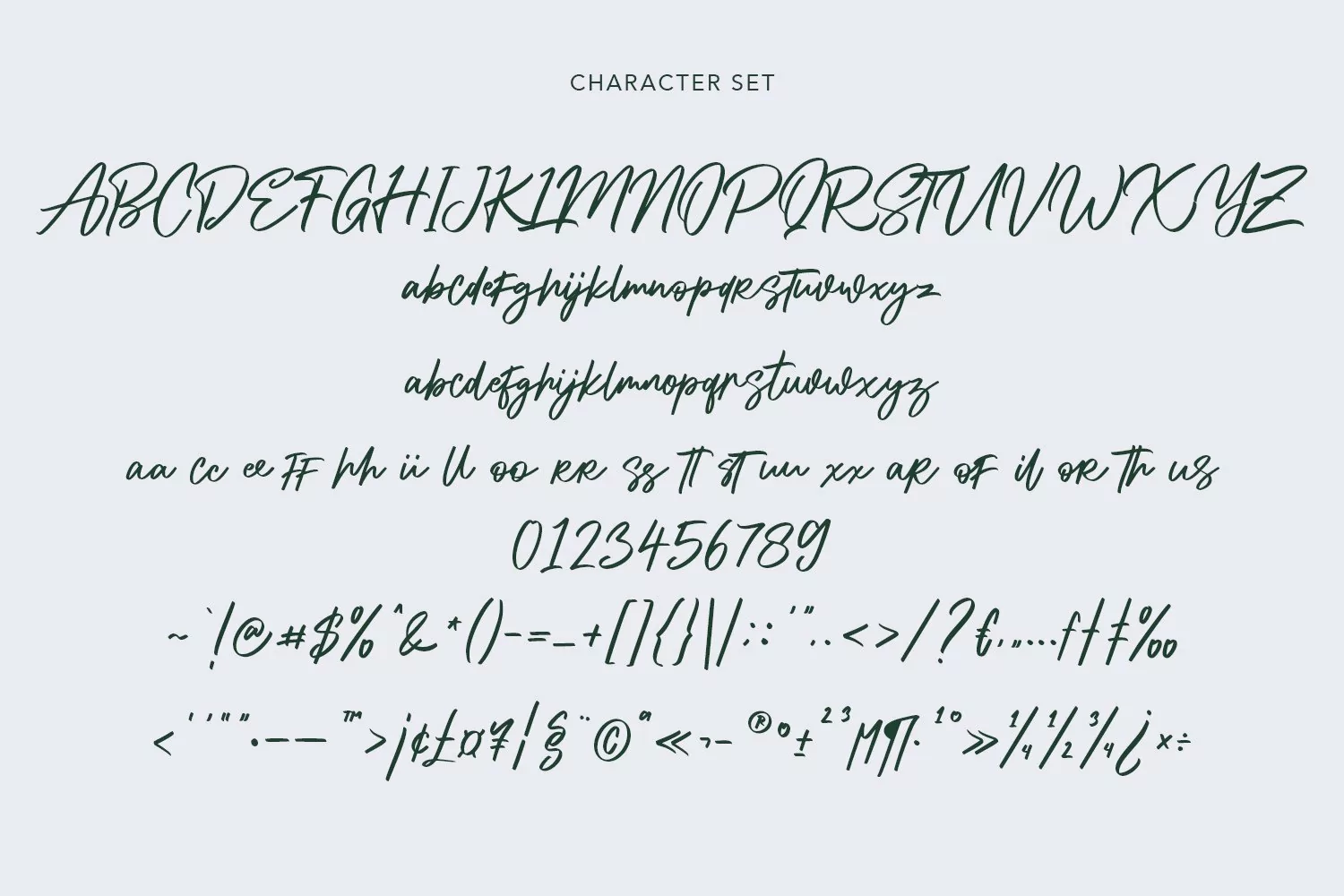
Alphasoil Signature Font
Alphasoil Signature Font is a modern brush script font. It use a brush stroke to make it cool if look on the details. It readable in short text. Alphasoil Signature Font includes opentype features Ligatures and lowercase Alternate, you can mixed the lowercase alternate to make it coolest. Alphasoil Signature Font support multilingual more than 100+ language. This font is good for logo design, Movie Titles, Books Titles and any awesome project you create. Make a stunning work with Alphasoil Signature Font.
Give your designs an authentic handcrafted feel. "Alphasoil Signature Font" is perfectly suited to signature, stationery, logo, typography quotes, magazine or book cover, website header, clothing, branding, packaging design and more.